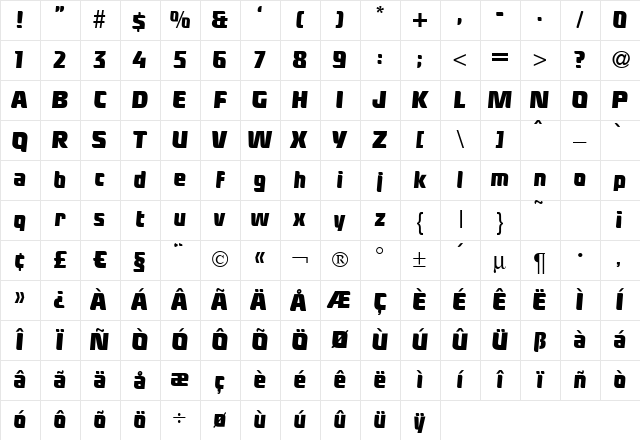
Ladykiller Regular
Ladykiller Family
Complete Ladykiller Regular glyph index. Displaying only characters natively supported by Ladykiller Regular font.
Design Context for Ladykiller
Ladykiller is a composed and adaptable typeface that performs quietly and consistently across a wide range of design contexts.